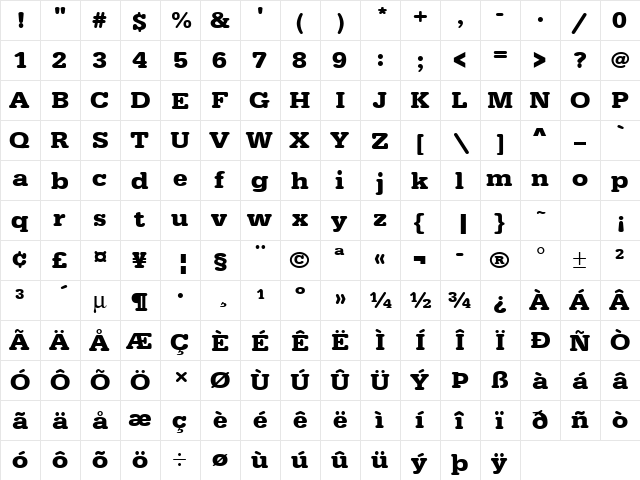
URWTypewriterTExtWid Bold Font Preview
Design Context for URWTypewriterTExtWid Typeface
URWTypewriterTExtWid uses fixed-width spacing throughout, giving it the structured, systematic character associated with coding environments and technical documentation. The heavy weight commands attention and anchors typographic hierarchies.
Well-suited to data-driven dashboards, coding tutorials, and any design that wants to reference the world of programming.